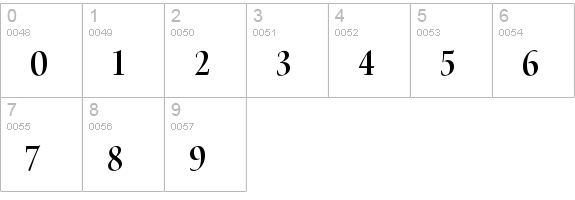
Waters Titling Pro Semibold Condensed Font Details
Waters Titling Pro Semibold Condensed is a sub-bold, structured, condensed-width variant in the Waters typeface family \xE2\x80\x94 well suited to sub-headlines and emphasised passages.
Introducing Waters Titling Pro Semibold Condensed Font, a mesmerizing display typeface that exudes elegance and sophistication. With its sleek and condensed design, this font is perfect for adding a touch of refined style to any project. The Waters Titling Pro Semibold Condensed Font boasts a unique fusion of modern simplicity and classic charm. Its carefully crafted letterforms are meticulously designed to ensure legibility while maintaining a sense of artistic flair. The semi-bold weight adds a boldness to the font, making it a standout choice for headlines, titles, and branding materials. What sets Waters Titling Pro Semibold Condensed Font apart is not just its stunning aesthetics but also its versatility. Whether you're designing a high-end fashion magazine, a luxury brand logo, or a sophisticated website, this font will effortlessly elevate your work to new heights. And the best part? Waters Titling Pro Semibold Condensed Font is available for free download at FontsMarket.com. That's right, you can enhance your design projects with this incredible typeface without spending a dime. Simply head over to FontsMarket.com, and with just a few clicks, you can access this font, ready to be incorporated into your creative endeavors. Don't miss out on the opportunity to enhance your designs with the timeless appeal of Waters Titling Pro Semibold Condensed Font. Download it for free today at FontsMarket.com and unlock the potential to create stunning visuals that captivate and inspire.